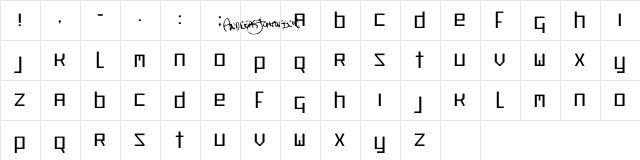
Pulsate Pulsate
Design Context for Pulsate Typeface
Pulsate is a composed and adaptable typeface that performs quietly and consistently across a wide range of design contexts.